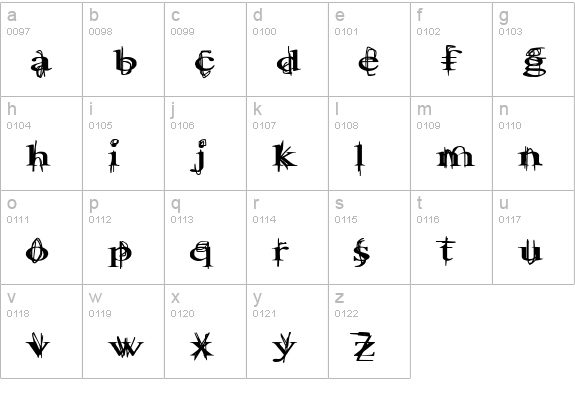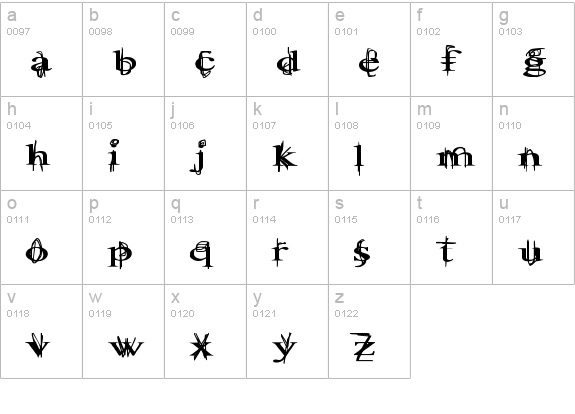
Ball Tongue Font Details
Introducing Ball Tongue font, a dynamic and playful typeface that brings a unique flair to your designs. With its bold and energetic appearance, Ball Tongue is perfect for adding a touch of creativity to your projects. Whether you're working on a poster, logo, or branding materials, this font is sure to make a statement. The best part? Ball Tongue font is completely free to download at FontsMarket.com! So go ahead and elevate your designs with this eye-catching and versatile typeface. Stand out from the crowd and let your creativity shine with Ball Tongue font.